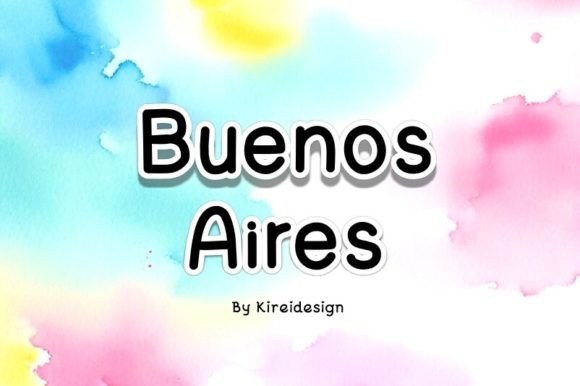
Introducing Buenos Aires Font: The Best Font for iOS App Design
Unlock the power of captivating design with Buenos Aires Font, a delightful sans serif typeface crafted by the talented Kireidesign. This font is not just any font; it is a masterpiece that will elevate your creative projects to new heights.
With its cute and playful demeanor, Buenos Aires Font adds a touch of fun and whimsy to your designs. Its easy-to-read nature ensures that your message gets across effortlessly, captivating your audience and leaving a lasting impression.
Are you looking to create eye-catching posters that turn heads? Buenos Aires Font is your secret weapon. Its unique style and vibrant personality breathe life into your posters, making them stand out in a sea of mediocrity.
Invitations hold the power to transport your guests to a world of enchantment. With Buenos Aires Font, your invitations become enchanting works of art. The font's charm and elegance effortlessly capture the essence of your event, leaving your guests in awe and anticipation.
Notes are more than just jotted-down thoughts; they are personal expressions of creativity. Buenos Aires Font infuses your notes with a touch of flair, transforming mundane scribbles into visually captivating pieces. Let your ideas come to life and inspire others with this extraordinary font.
In the digital realm, where first impressions matter, Buenos Aires Font shines brightly. Whether you are designing stunning website graphics or crafting seamless user interfaces, this font's versatility knows no bounds. Your digital designs will exude professionalism, sophistication, and an irresistible allure.
Presentations are powerful tools that can make or break your message. Stand out from the crowd and captivate your audience with Buenos Aires Font. Its clean lines and modern aesthetic command attention, ensuring that your ideas are conveyed with impact and style.
But why stop there? Buenos Aires Font is your ultimate companion for a wide range of design projects. From social media posts to branding materials, from product packaging to merchandise, this font adapts effortlessly to any creative endeavor you embark upon.